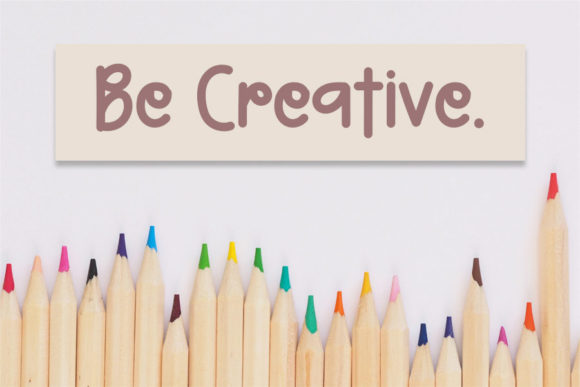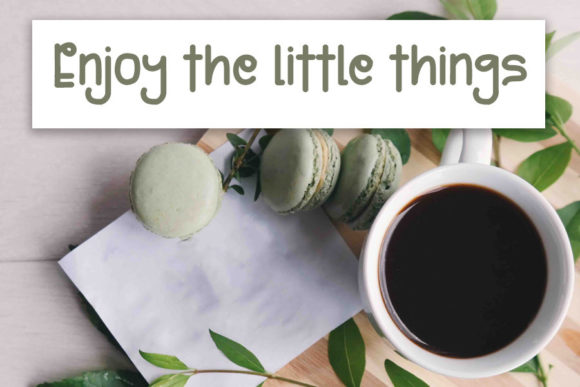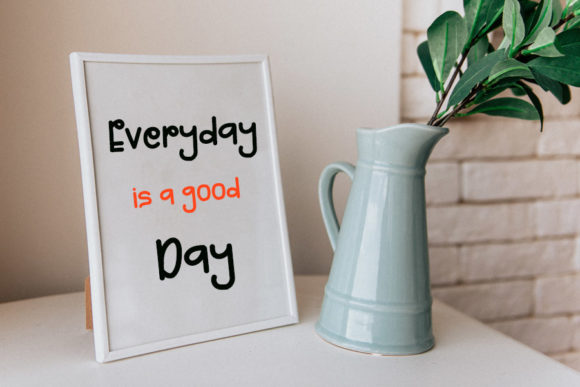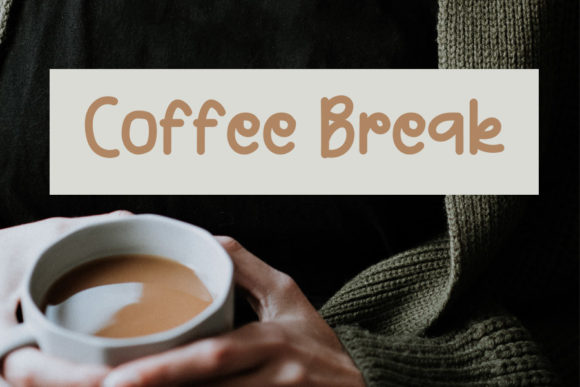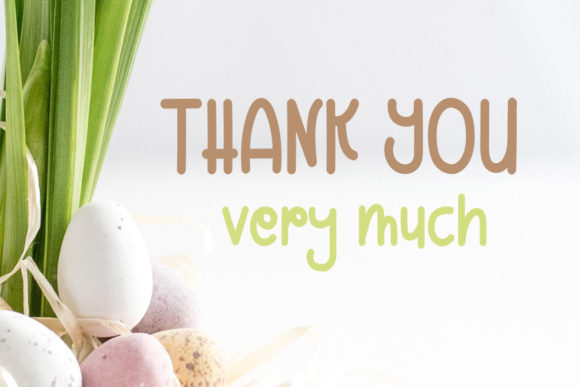
Introduction to Handbook Font
Have you ever stared at a blank page, wondering how to bring your creative project to life? The blank canvas can be intimidating, but what if you had the perfect design resource to guide you? That’s where the Handbook Font comes in – a fun and relaxed display font that can elevate your designs to new heights.
As a designer, you’re constantly on the lookout for high-quality fonts that can add a unique touch to your work. With the Handbook Font, you’ll find that it’s incredibly versatile and can fit seamlessly into a wide range of designs. Whether you’re working on a logo, a brochure, or even a website, this font is sure to make your project stand out.
Key Features of Handbook Font
- High-quality design resource suitable for creative projects, offering a professional look and feel.
- Unique characteristics include a clean and modern aesthetic, making it an excellent choice for modern creative projects.
Honest Review: Handbook Font
As a designer, I’m always on the lookout for high-quality fonts that can elevate my creative projects. Recently, I stumbled upon Handbook Font, a free download that caught my attention. After putting it to the test, here’s my honest review.
- ✨ Clean and modern design aesthetic that’s perfect for minimalist projects
- ✨ Wide range of weights and styles to suit various design needs
- ✨ High-quality typography that’s ideal for digital and print media
- ⚠️ Limited language support, which might be a concern for multilingual projects
- ⚠️ Some users may find the font family too extensive, leading to design overwhelm
Overall, I’m impressed with Handbook Font’s high-quality design and versatility. While it may have some limitations, it’s a great resource for designers looking for a clean and modern font. With a little creativity, I’m confident that Handbook Font can become a valuable addition to your design toolkit.
Handbook Font: A Practical Application Guide
Handbook Font is a high-quality design resource that offers a free download for creative projects. This versatile font is perfect for designers and artists looking for a unique and stylish addition to their work.
Tips for Getting the Most Out of Handbook Font
To maximize the potential of Handbook Font, try the following:
- Experiment with different font sizes and styles to add visual interest to your design.
- Combine Handbook Font with other design elements, such as graphics and images, to create a unique and engaging visual identity.
Handbook Font is suitable for a wide range of creative projects, including:
- Graphic design and branding
- Print design and publishing
- Marketing and advertising materials